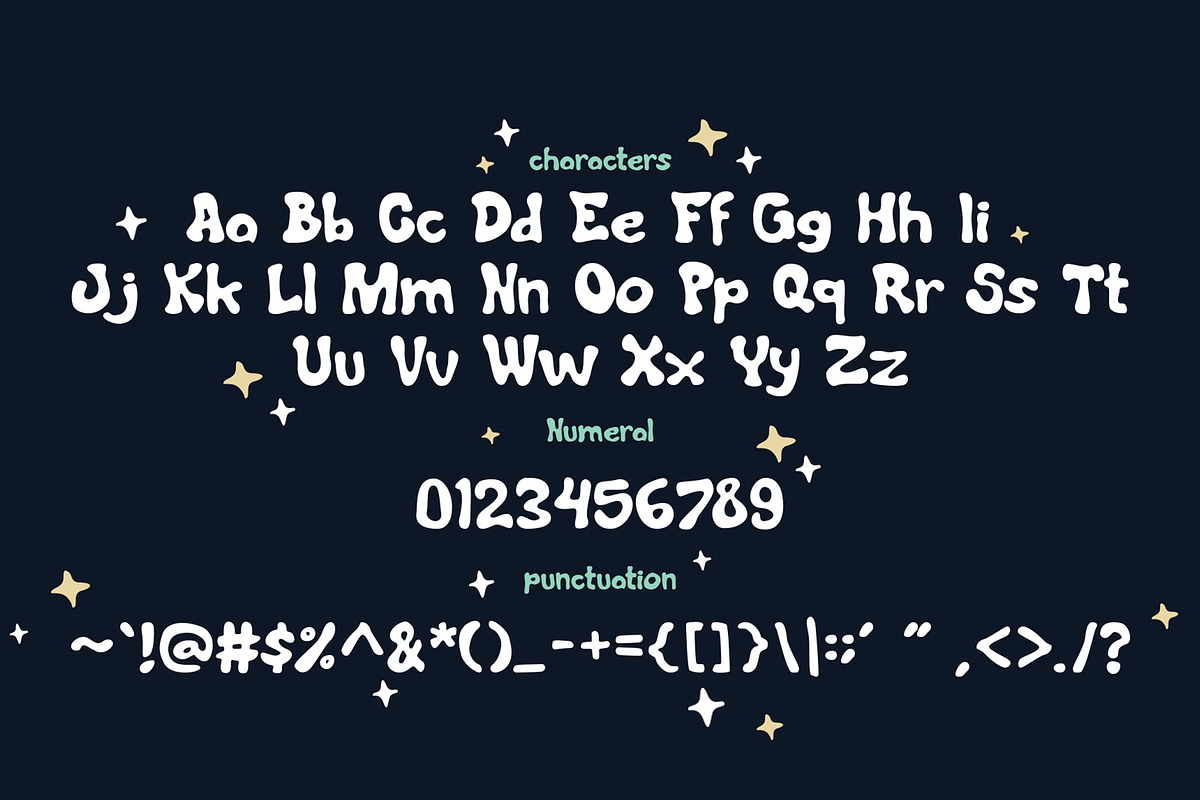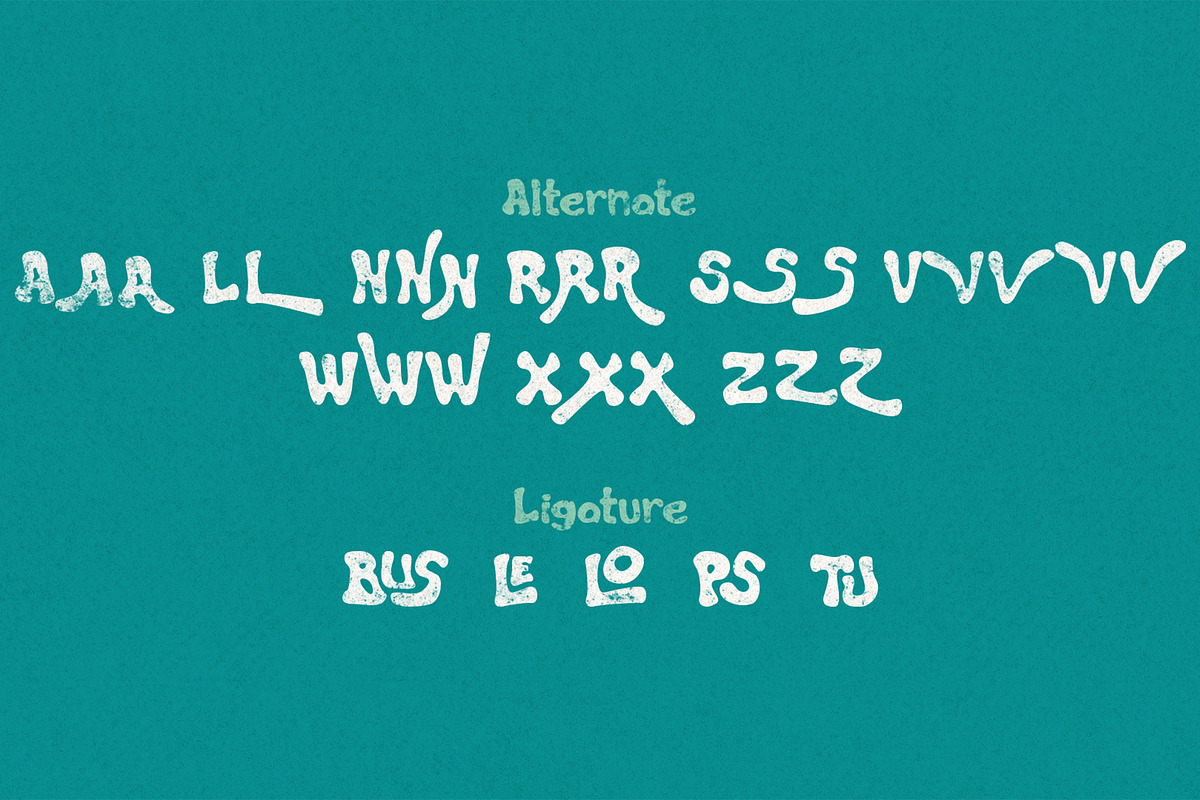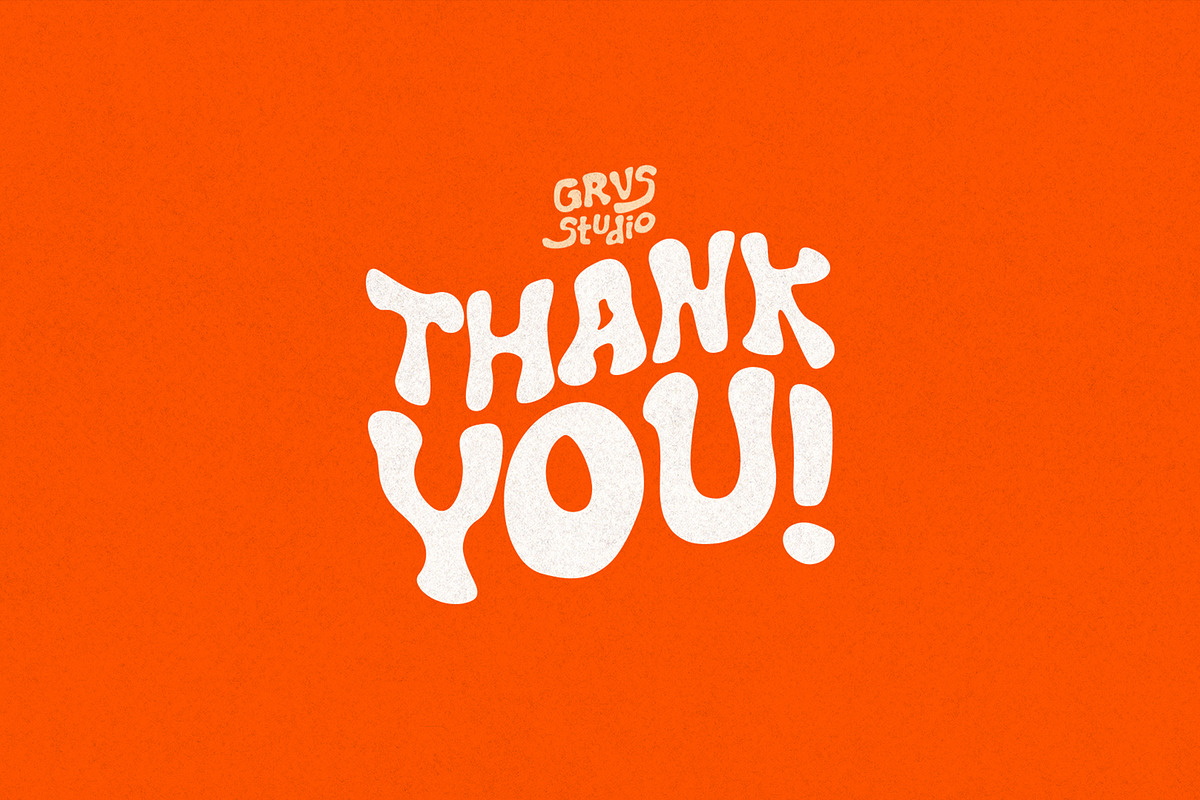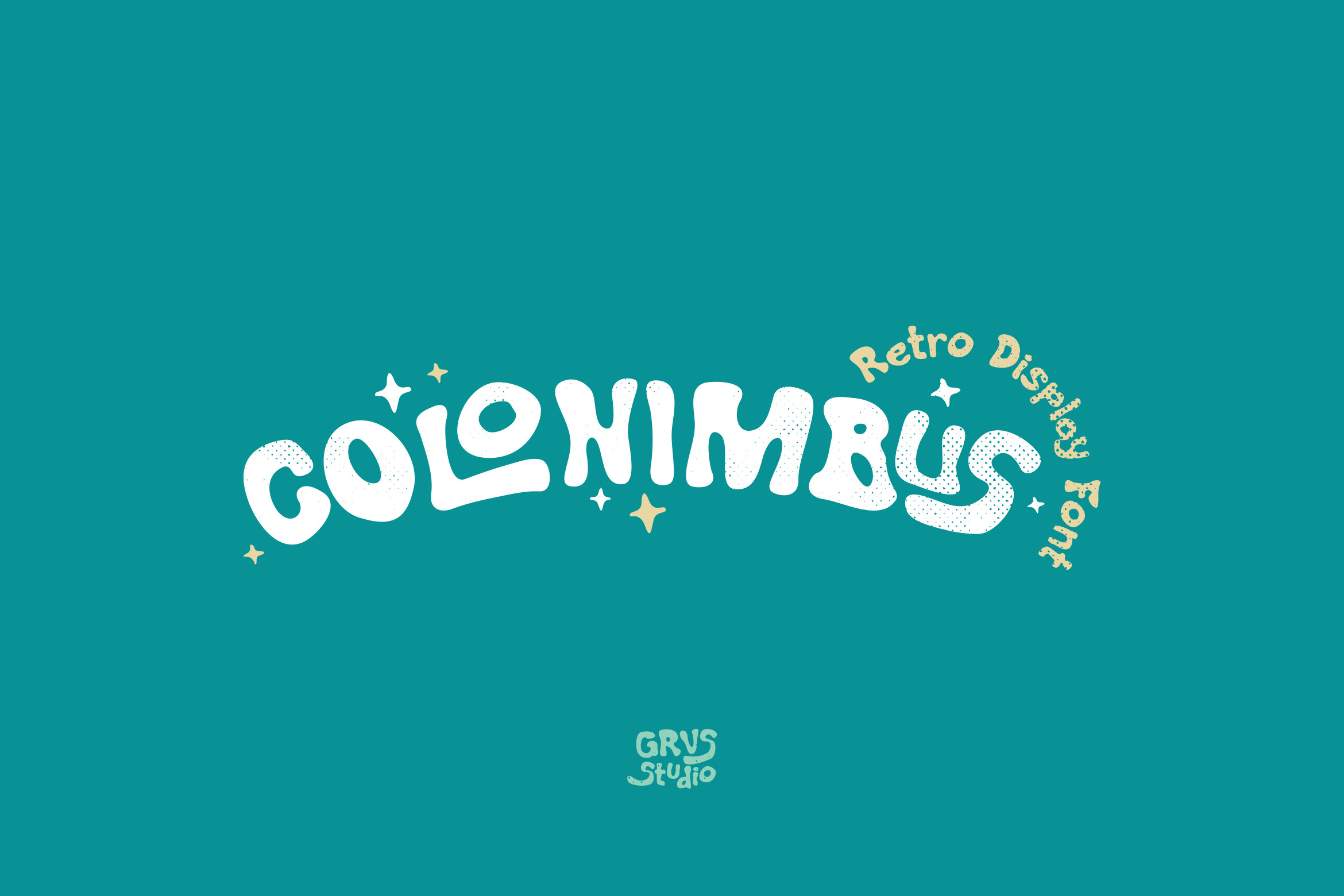
Colonimbus Display Font
GRVS Colonimbus Retro Display Font is our new item that is suitable for your business or logo with Retro, Vintage and Mascot theme.
Great for Logo, Sticker, Jersey, Invitation Card, Brochures, etc.